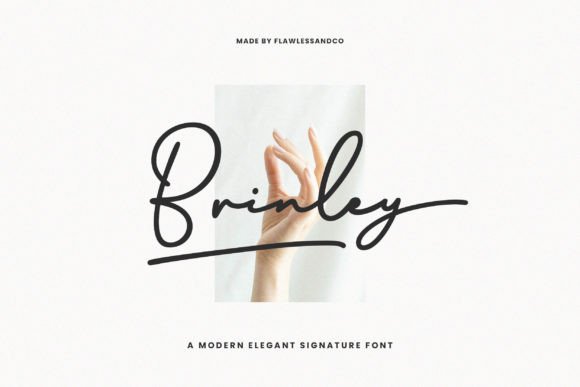
The Designer’s Delight: A Deep Dive into the Brinley Font
I’ll never forget the time I was working on a wedding invitation project, and my client asked for a font that was elegant, yet personal. I scoured the internet, tried countless fonts, but nothing seemed to fit the bill. That was until I stumbled upon the Brinley font. Its smooth, flowing lines and natural charm instantly won me over. In this article, I’ll share my love for the Brinley font, its features, and how to make the most of it in your designs.
An Honest Review of Brinley Font
What I Love About Brinley ✨
- 💫 Elegant and captivating modern handwritten script font
- ✅ Smooth and flowing lines that exude a natural and personal touch
- 🎉 Well-suited for a variety of designs, including branding, wedding invitations, packaging designs, and posters
- 🔍 PUA encoded for easy access to amazing glyphs and ligatures
While Brinley is an amazing font, there are a few things to keep in mind:
The Story Behind Brinley Font
The Brinley font was designed with the intention of creating a modern, elegant, and personal script font. The designer aimed to craft a font that would be versatile and suitable for a wide range of design projects. With its smooth lines and natural charm, Brinley has become a popular choice among designers and crafters.
Q: Is Brinley font suitable for body text?
A: While Brinley is an elegant font, it’s best suited for headlines, titles, and short paragraphs. For body text, a clearer font may be more suitable.